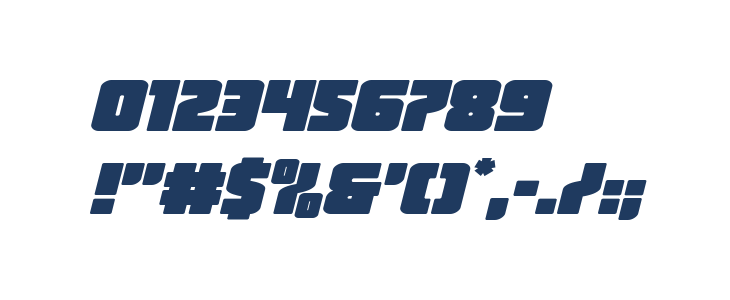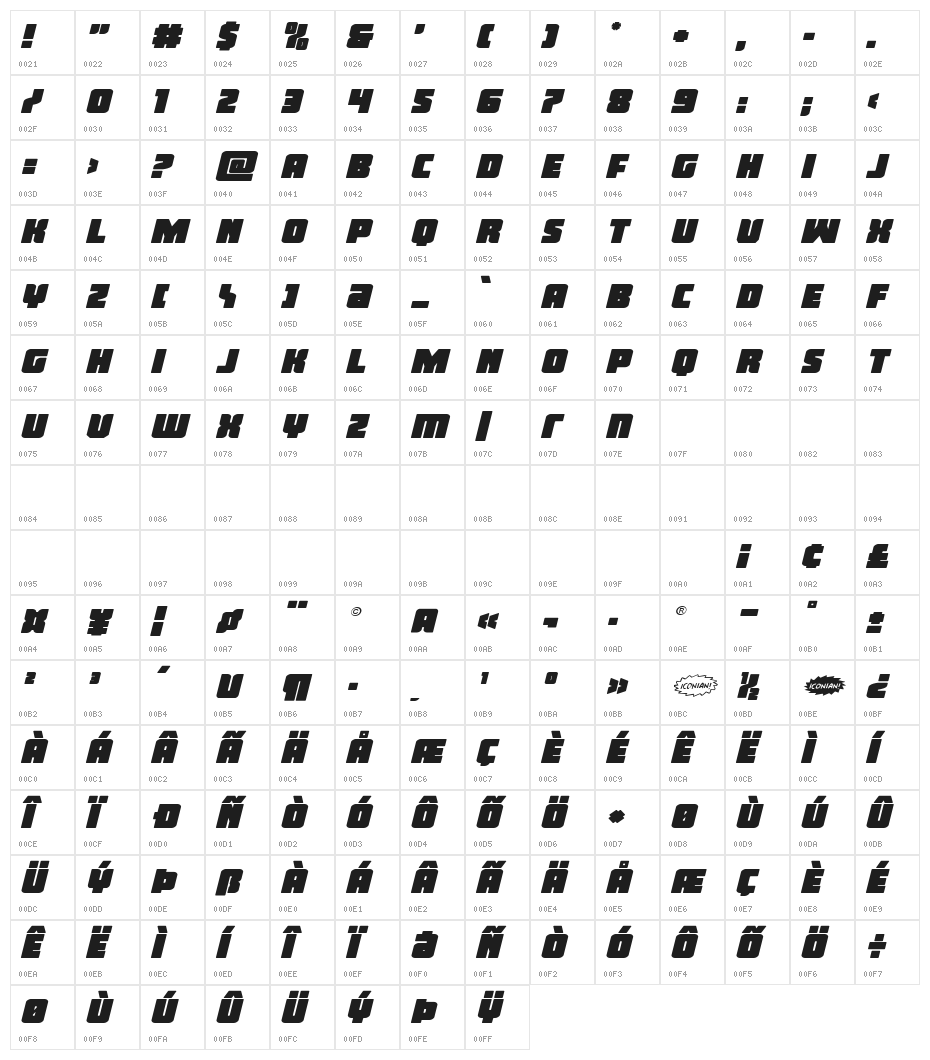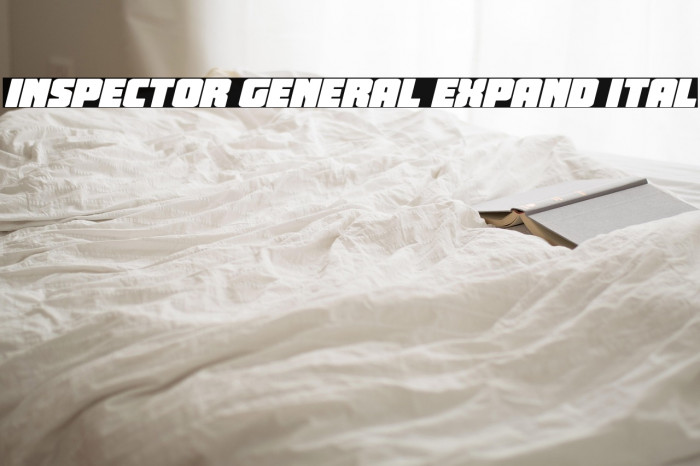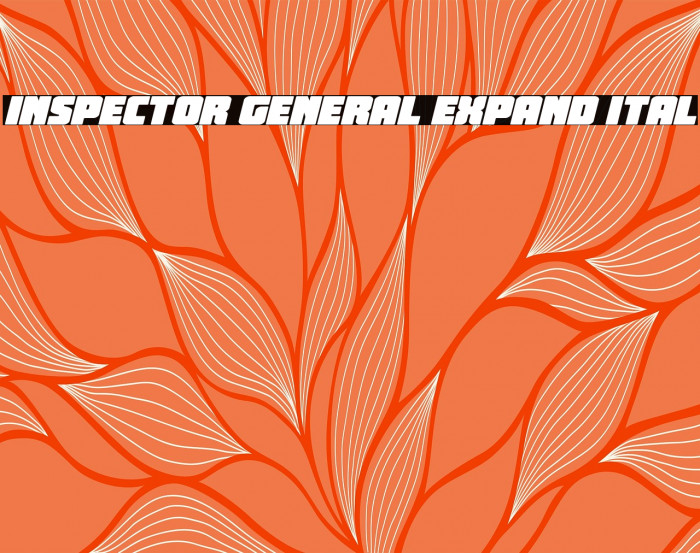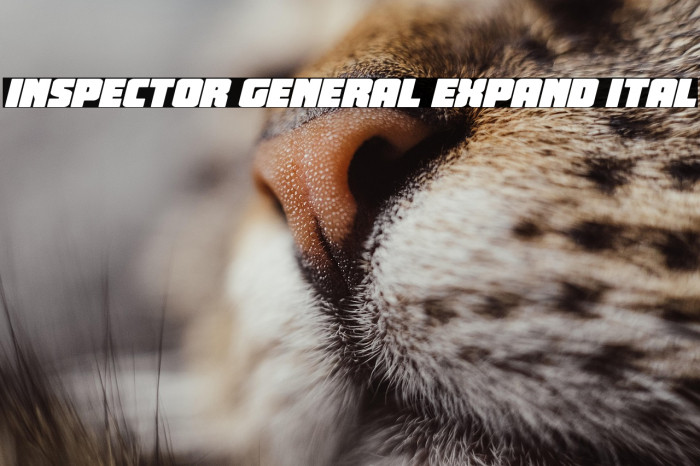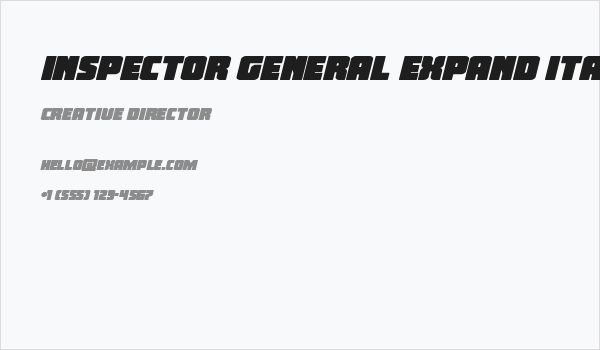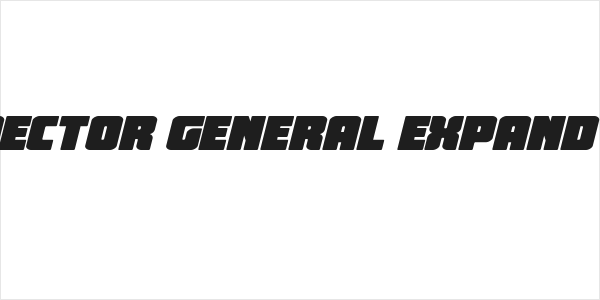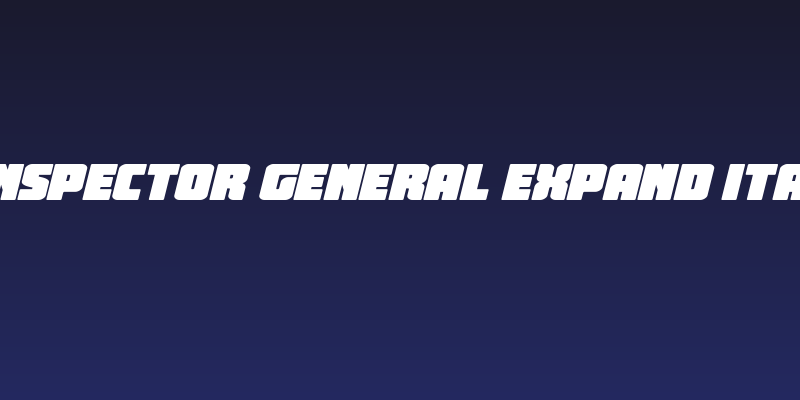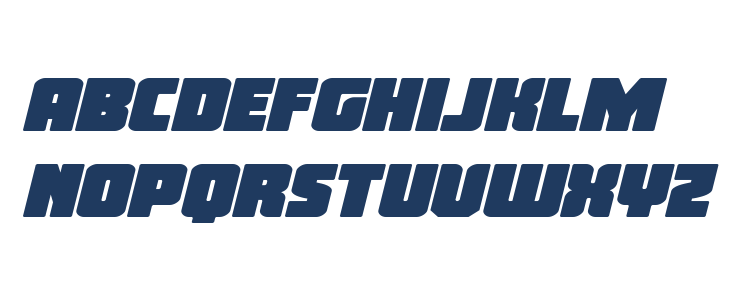
Inspector General Expand Ital Font
Inspector General Expand Ital Description
This font features bold, expansive characters with a strong, impactful presence. The letters are heavily weighted and have a slightly italicized slant, giving them a dynamic and forward-moving appearance. The strokes are thick and uniform, contributing to a robust and solid look. The spacing between characters is tight, enhancing the compact and cohesive feel of the text. This style is ideal for making a statement, with its high contrast and attention-grabbing design.
| Proposed Projects | Ideal for headlines, posters, branding, and any project requiring a strong visual impact. |